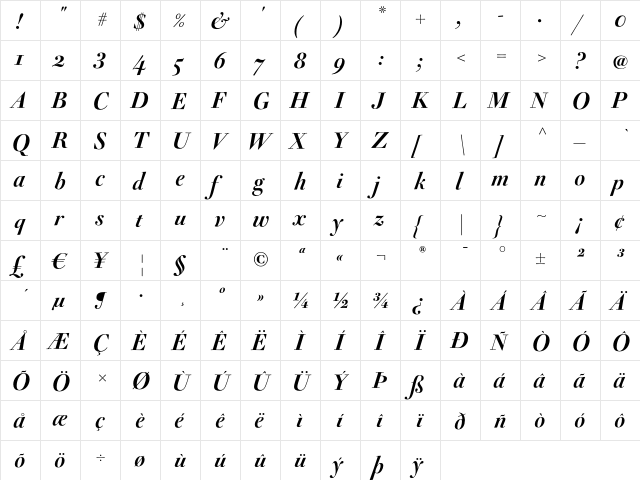
Acanthus BoldItalic
Design Context for Acanthus Typeface
Acanthus takes a measured approach to typography — its balanced proportions and neutral character make it a reliable workhorse for both digital and print work. Its italic angle brings a sense of urgency and motion to the letterforms. The heavy weight commands attention and anchors typographic hierarchies.
Pro Tip: Use Acanthus for emphasis, pull quotes, and subheadings where its slanted energy can add rhythm to the layout.